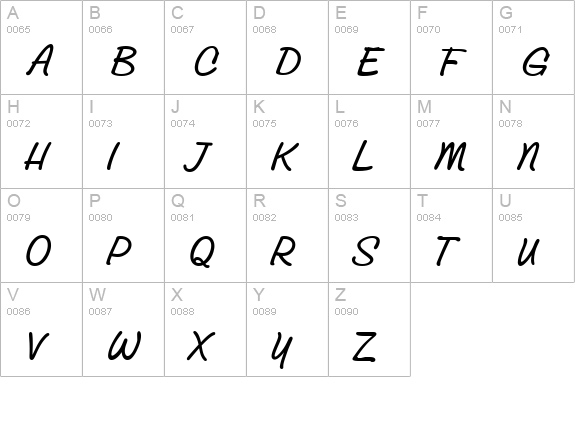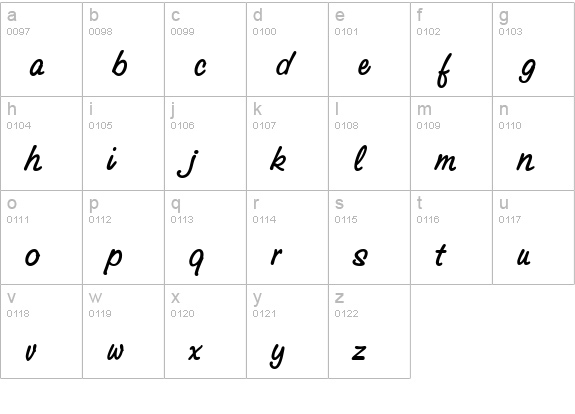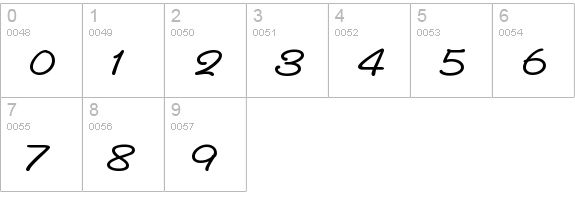
GroveScriptMedium Font Details
GroveScriptMedium is a versatile and elegant font that exudes sophistication and modernity. Its clean lines and balanced proportions make it perfect for a wide range of design projects, from branding to editorial design. The medium weight of this font strikes the perfect balance between readability and style, making it ideal for both headlines and body text. What's even better is that GroveScriptMedium is available for free download at FontsMarket.com, allowing designers and creatives to access this high-quality font without any cost. With its timeless appeal and professional look, GroveScriptMedium is sure to elevate any design project and leave a lasting impression on viewers. Whether you're working on a website, brochure, or poster, this font is a must-have in your design toolkit.